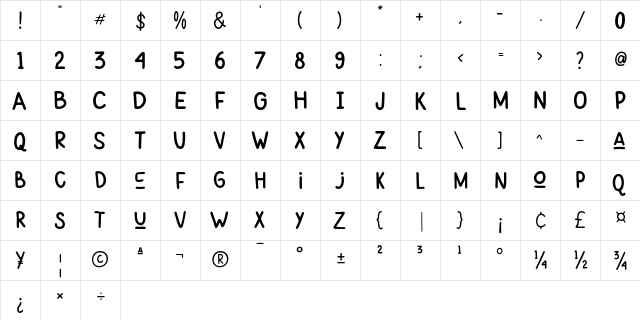
Handy Mode Regular
Design Context for Handy Mode Typeface
Handy Mode flows with the natural rhythm of handwritten lettering, making it ideal for designs that call for warmth and personal expression.
Font Pairing: Combine Handy Mode with a simple geometric sans for maximum contrast — the tension between flowing curves and clean structure is a classic typographic pairing.
Pro Tip: Use Handy Mode for short runs of text — names, titles, or taglines. Extended body copy in script faces tires the eye quickly.